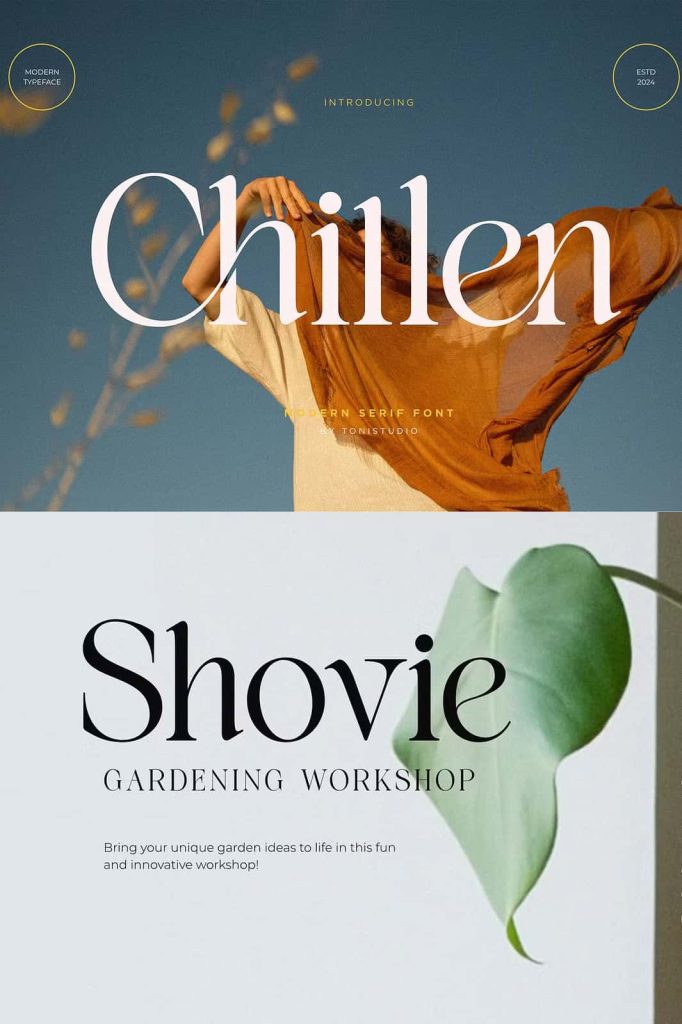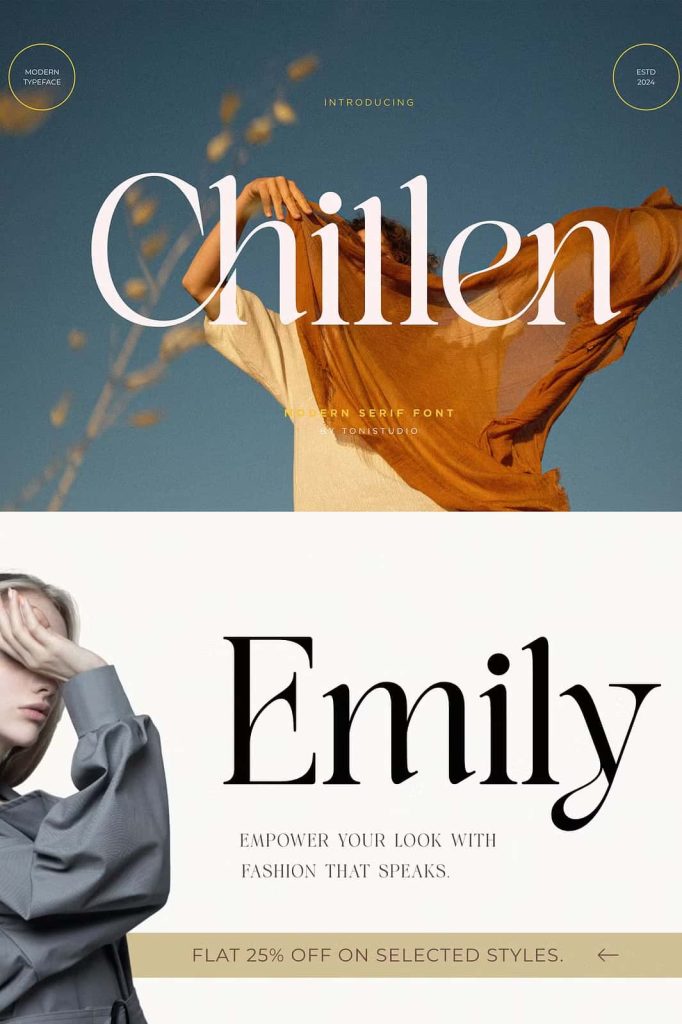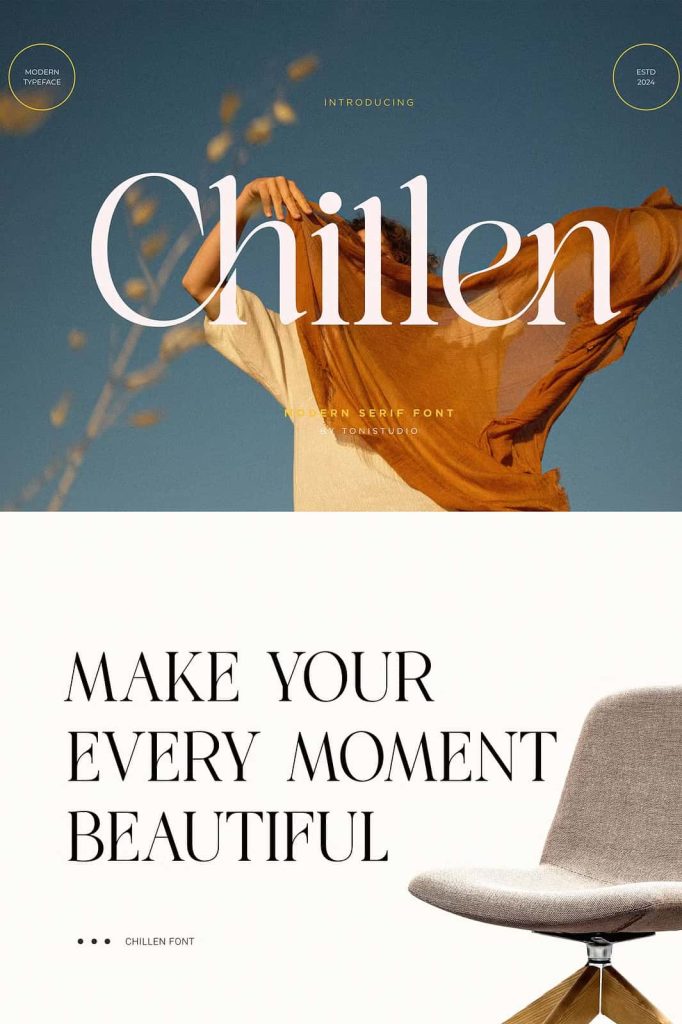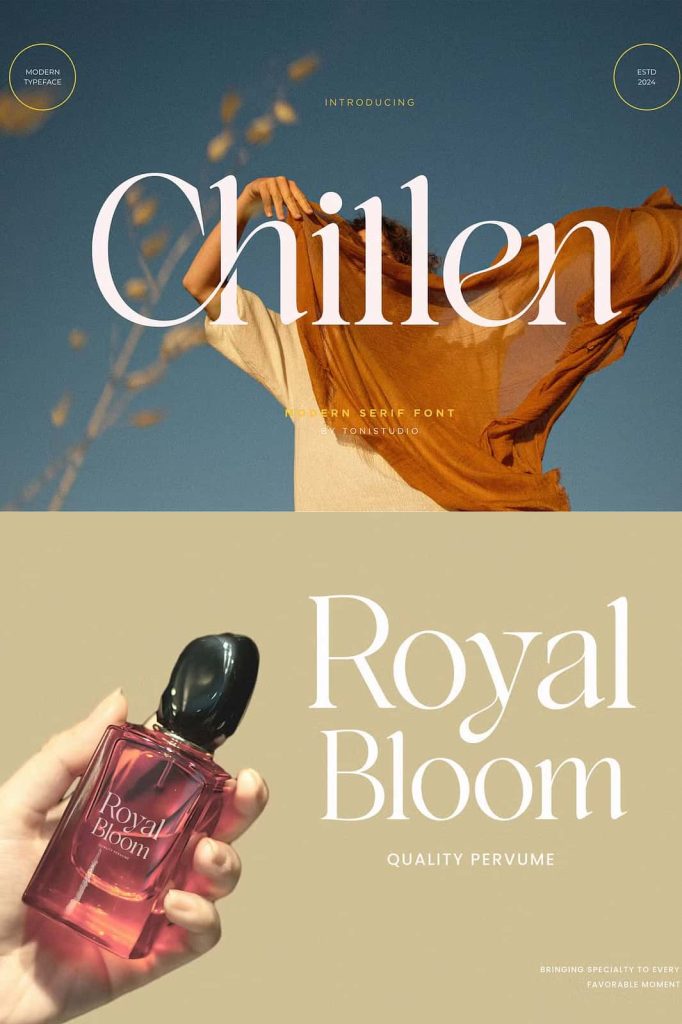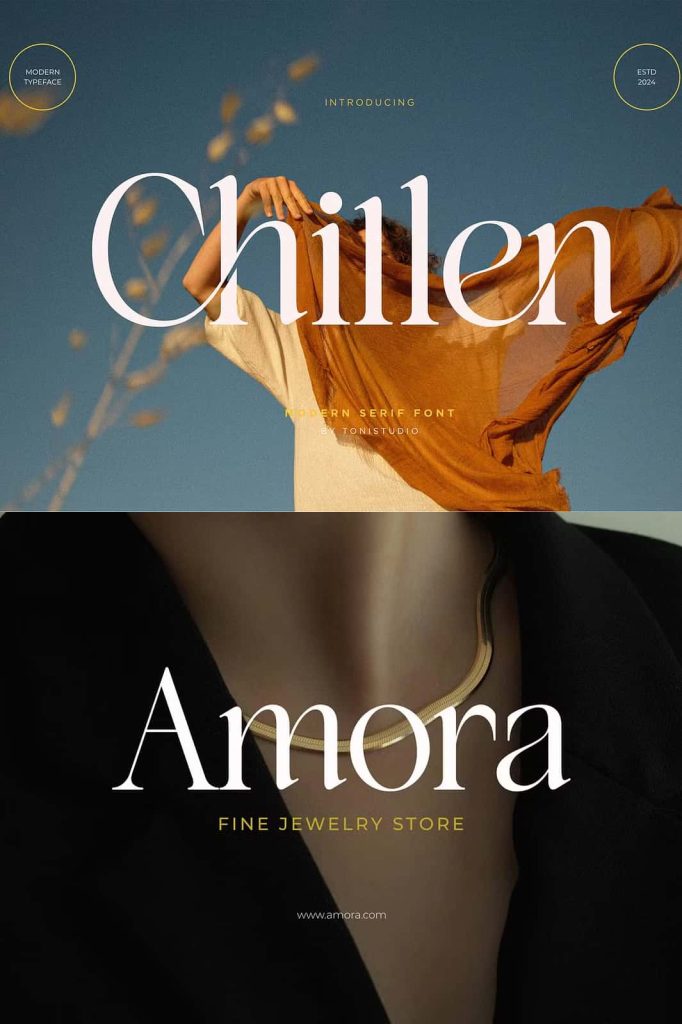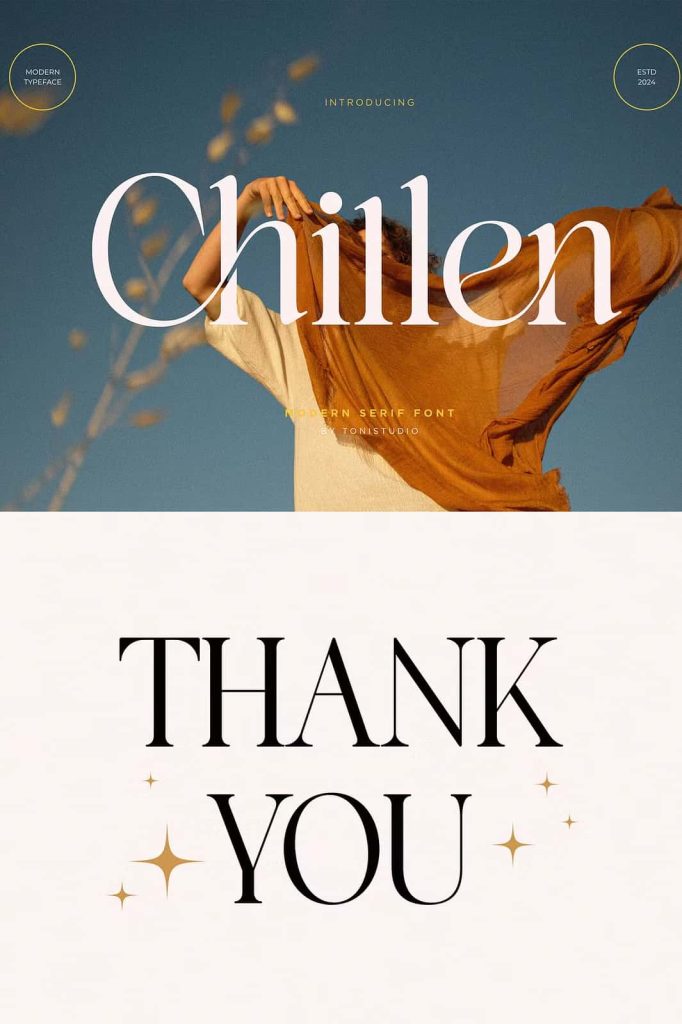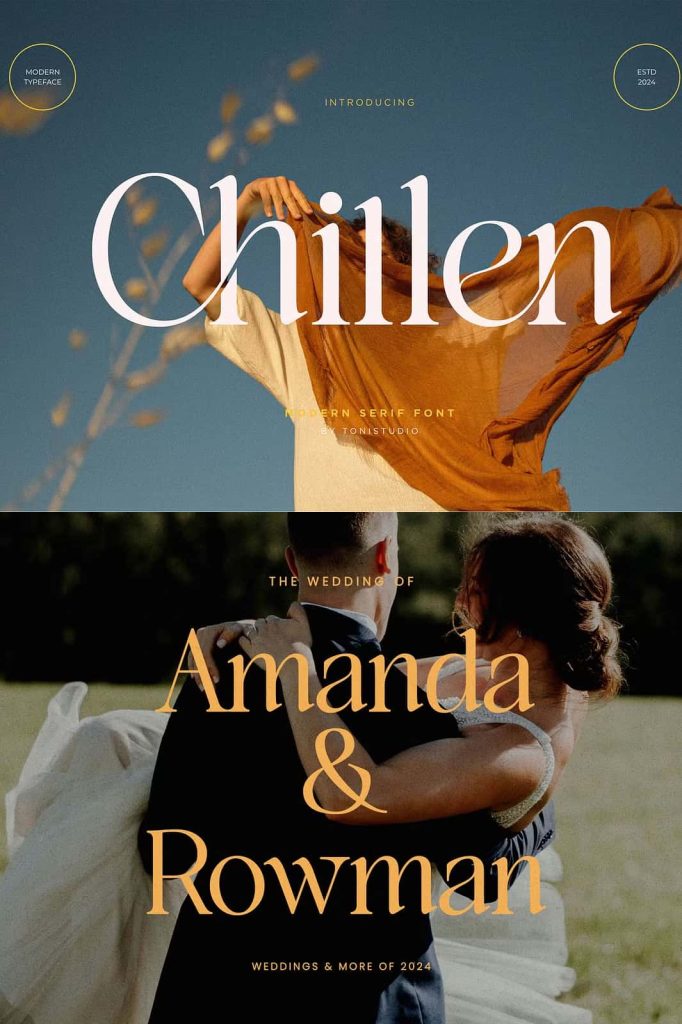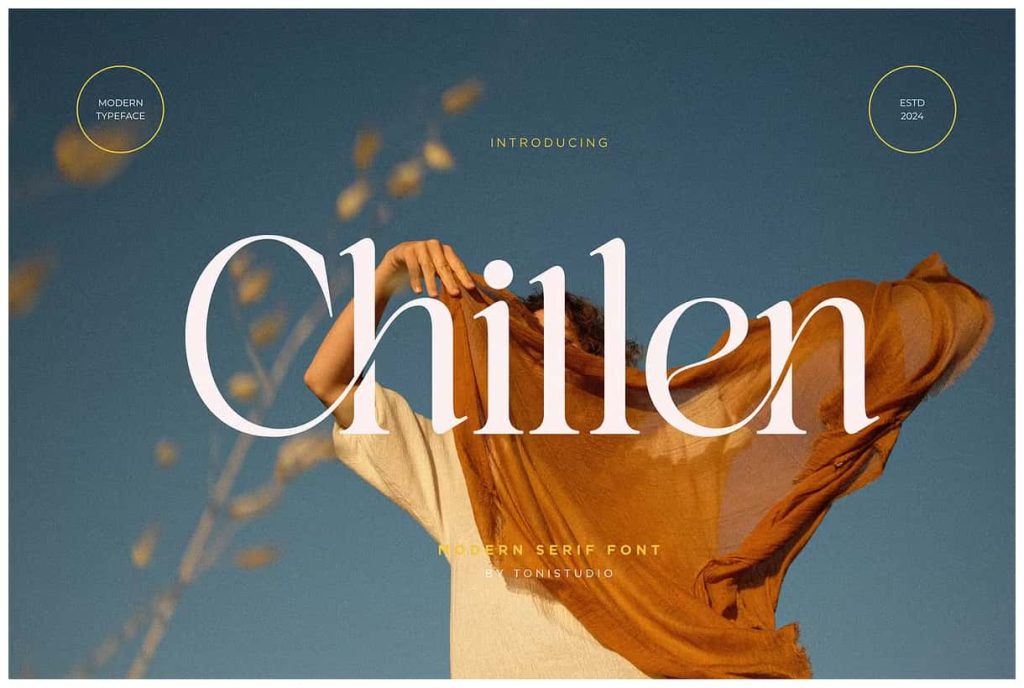
Chillen || modern display serifleastedJanuary 31, 2025Fonts Chillen is a charming serif font with timeless elegance and subtle curved details in each character. Download